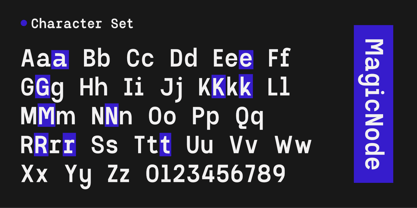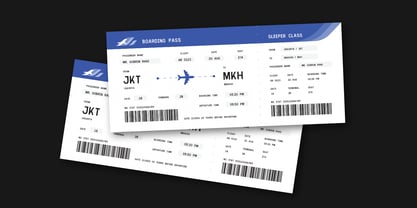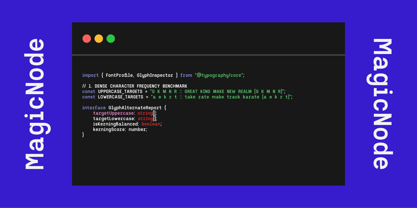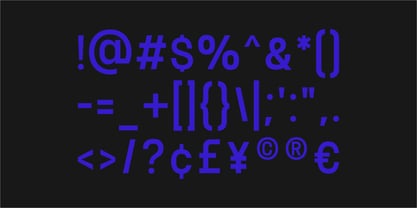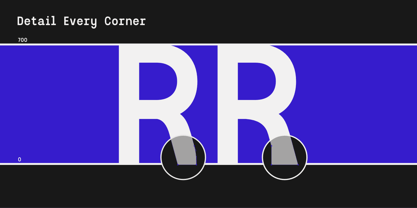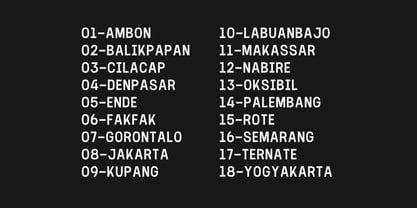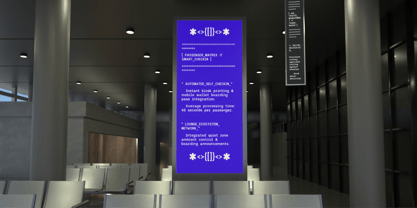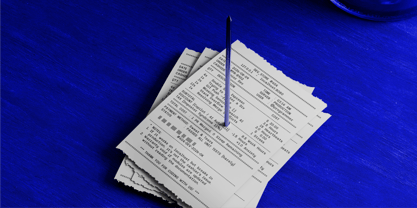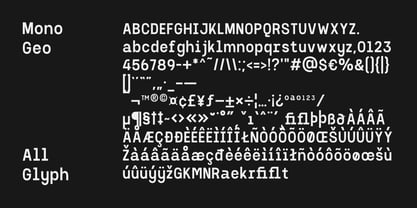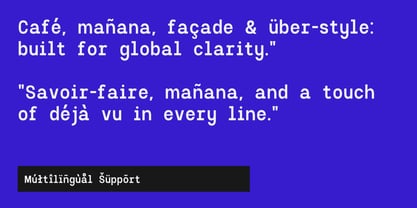
ZIA Magic Node
by ZIA Creative Studio
The ZIA Magic Node Font Family was designed by Zaidan Akbar and published by ZIA Creative Studio. ZIA Magic Node contains 2 styles and family package options. More about this family
ZIA Magic Node is a clean, modern, and precise monospace geometric font crafted by Zia Creative Studio, designed to elevate technical boundaries into sleek visual aesthetics. Featuring a sharp geometric structure and clean proportions, this font offers versatile OpenType features, making it an ideal choice for tech-driven branding, digital interfaces, and contemporary visual communication. Perfect for a variety of applications, including Tech & Software Branding, Web Design & Code Displays, Cyberpunk & Futuristic Posters, UI/UX Dashboards & Mobile Apps, and Editorial Tech Magazines & Book Covers.